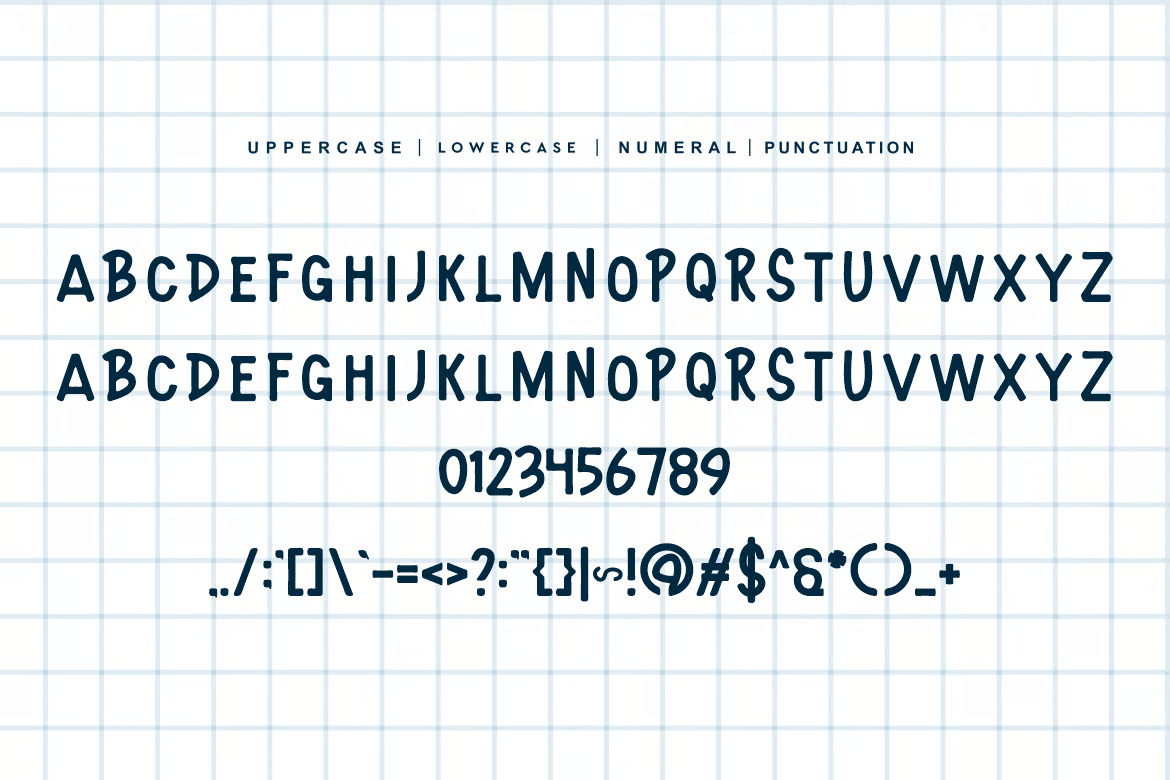
Groond Komine looks drawn with a thick marker. The capitals are tall, slightly uneven and full of bounce, and the strokes swell a little at the ends. On the title card, QR Design Studio set the name in neon yellow with a thick navy outline, like a sticker on graph paper.
Best uses for Groond Komine
- Stickers and labels
- Kids’ books and toys
- Comic titles
- Snack packaging
- YouTube thumbnails
For text under it, Nunito or Rubik work well. For another casual face, Patrick Hand adds handwriting.
Groond Komine Groovy & Playful Sans-Serif Font